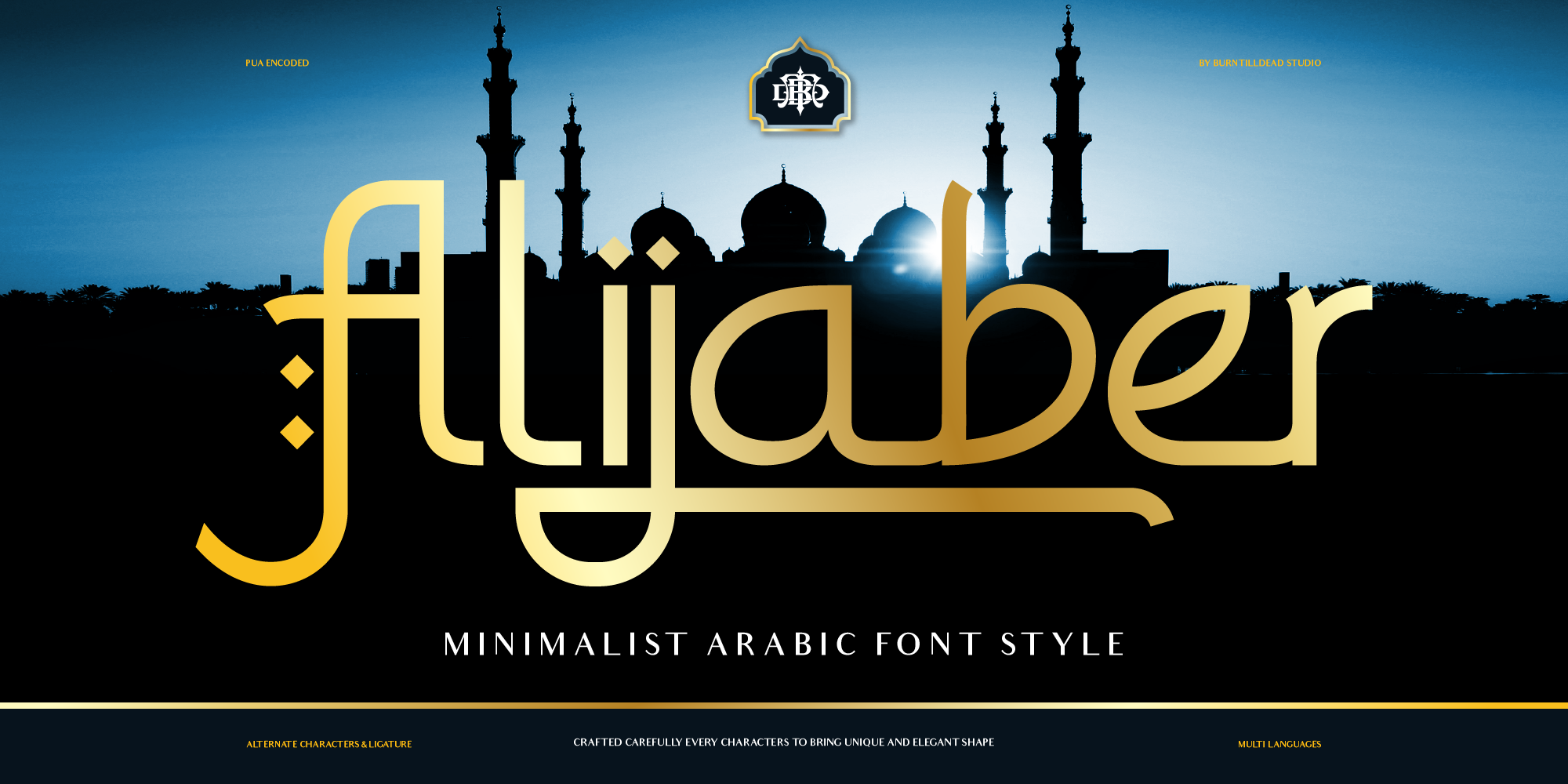
Alijaber Font Free Download is a perfect fit for a wide range of creative projects including branding, modern logos, magazine headlines, social media posts, Islamic-themed artwork, and digital advertisements.
What makes this font truly exciting is its elegant Arabic-style curves blended with modern typographic flair—giving your designs a sense of authenticity, cultural richness, and contemporary edge all at once.
Alijaber Font comes with several versatile families including Regular, Bold, Light, and Italic—offering maximum flexibility for both print and digital design needs.